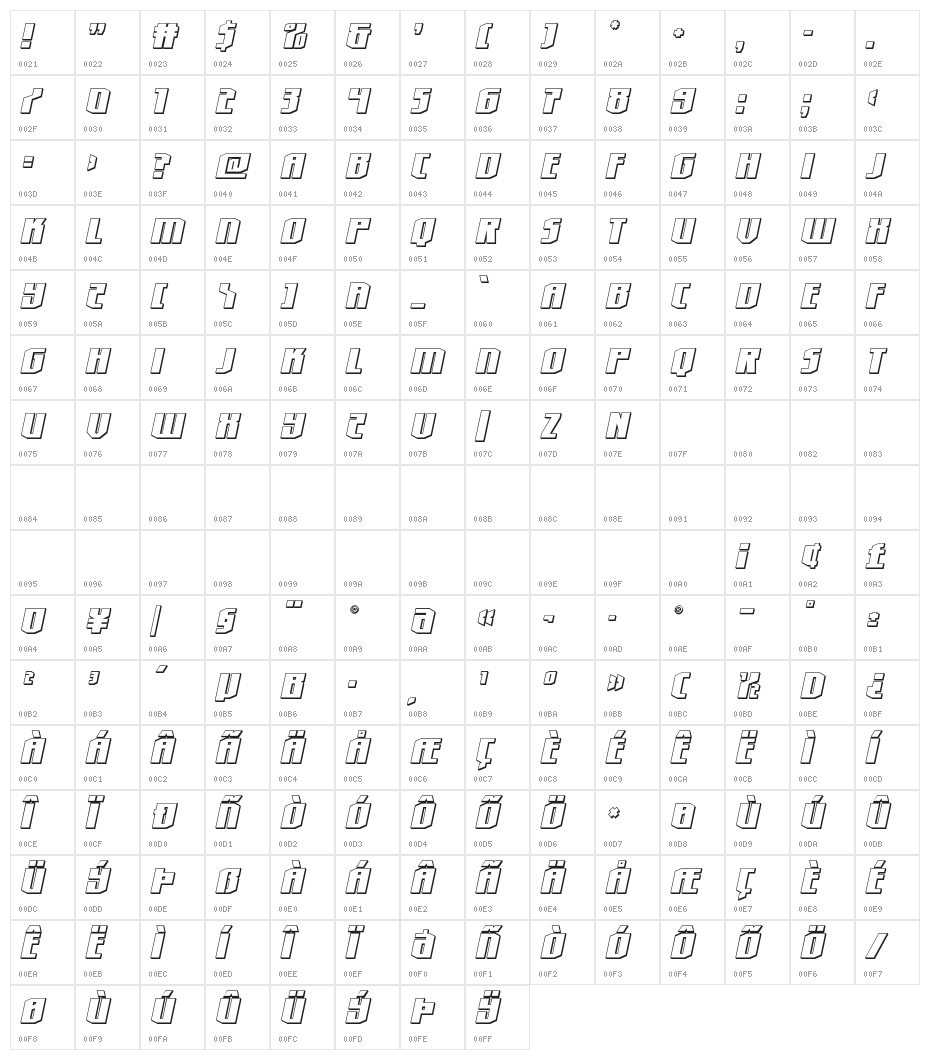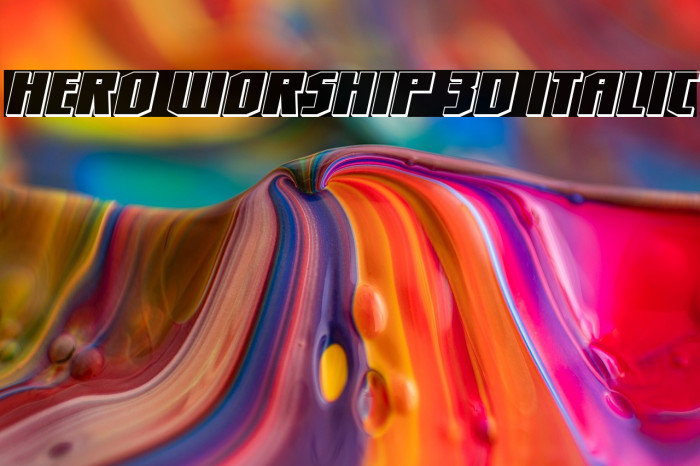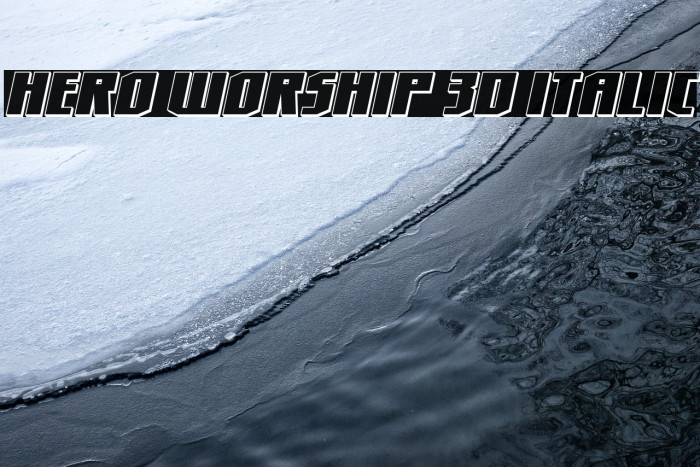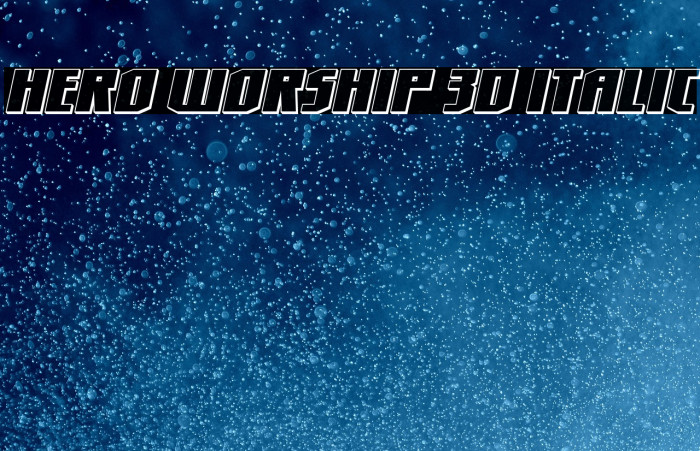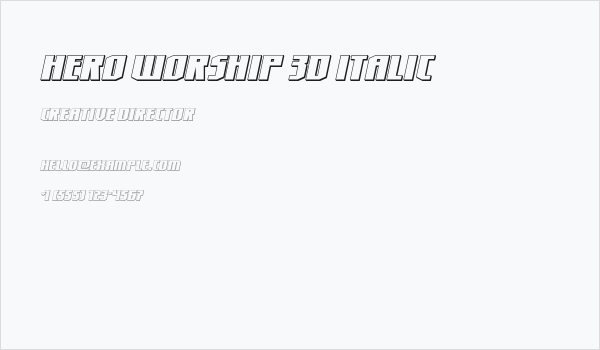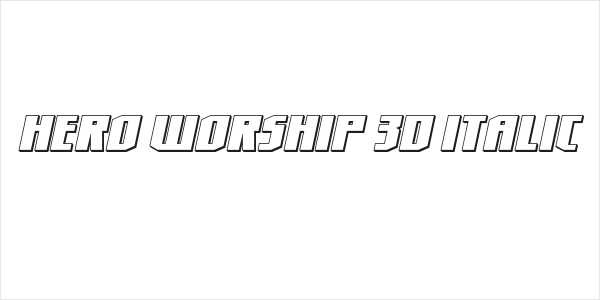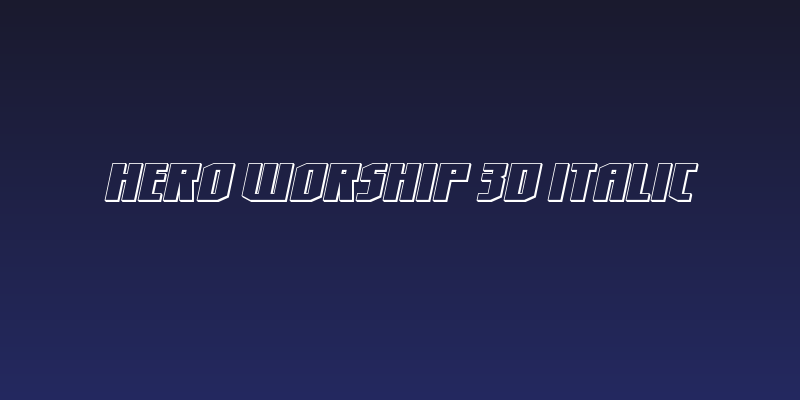
Hero Worship 3D Italic Font
Hero Worship 3D Italic Description
This font features a bold, three-dimensional design with a strong italic slant, giving it a dynamic and futuristic appearance. The characters are outlined, adding depth and a sense of movement. The angular, geometric shapes of the letters convey a sense of strength and modernity. The uppercase and lowercase letters maintain a consistent style, with the numbers and special characters following suit. This font is ideal for projects that require a bold statement, such as posters, headlines, or branding materials that aim to capture attention with a modern and edgy look.
| Proposed Projects | Ideal for posters, headlines, branding, and any project needing a bold, modern statement. |